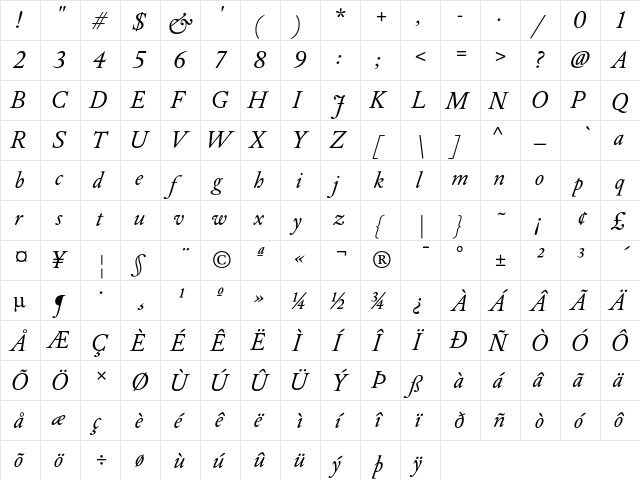
DTL Elzevir T Italic
Design Context for DTL Elzevir Typeface
DTL Elzevir takes a measured approach to typography — its balanced proportions and neutral character make it a reliable workhorse for both digital and print work. Its italic angle brings a sense of urgency and motion to the letterforms.
Pro Tip: Use DTL Elzevir for emphasis, pull quotes, and subheadings where its slanted energy can add rhythm to the layout.